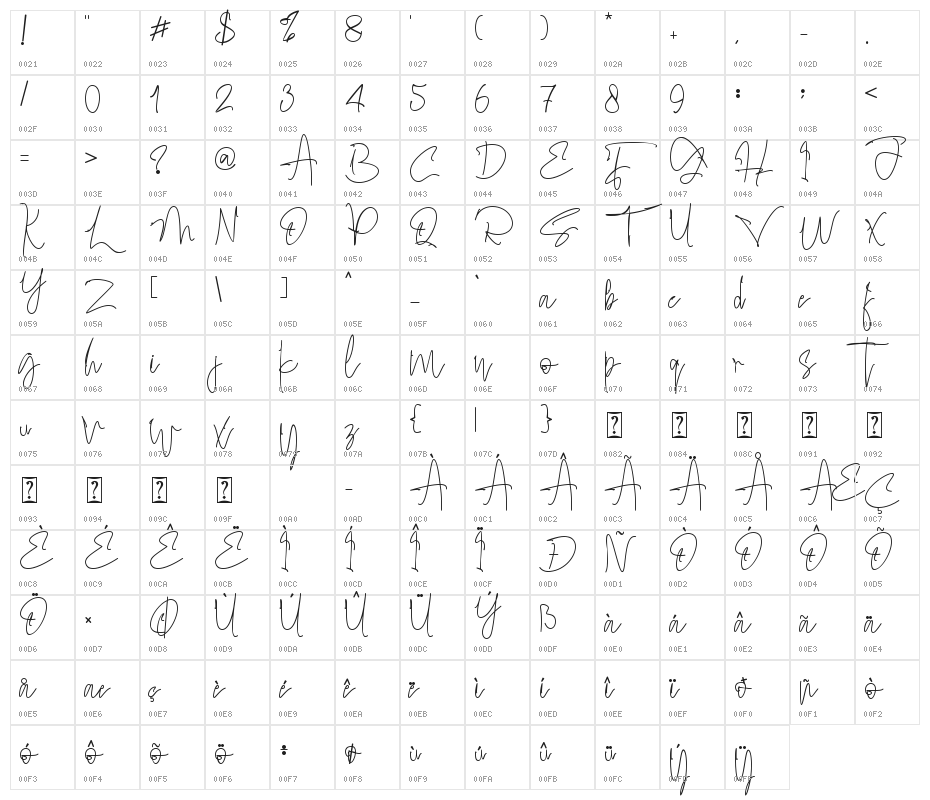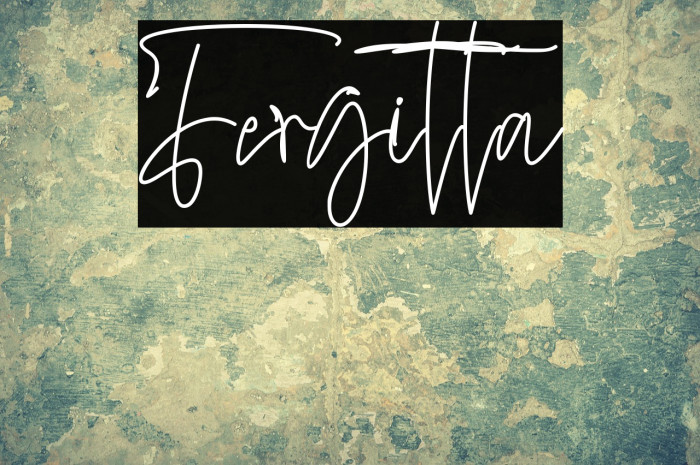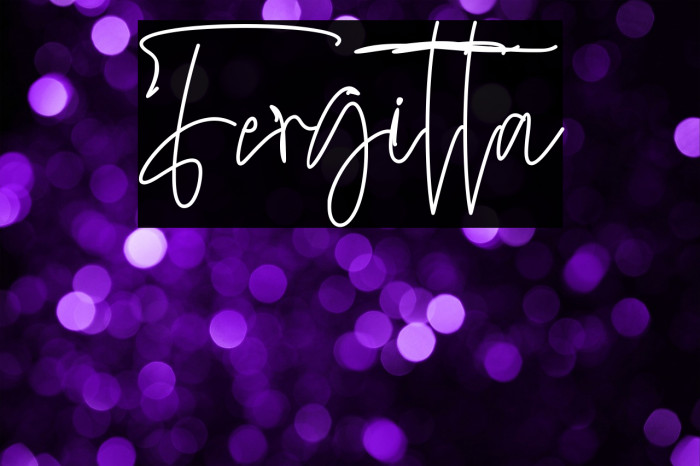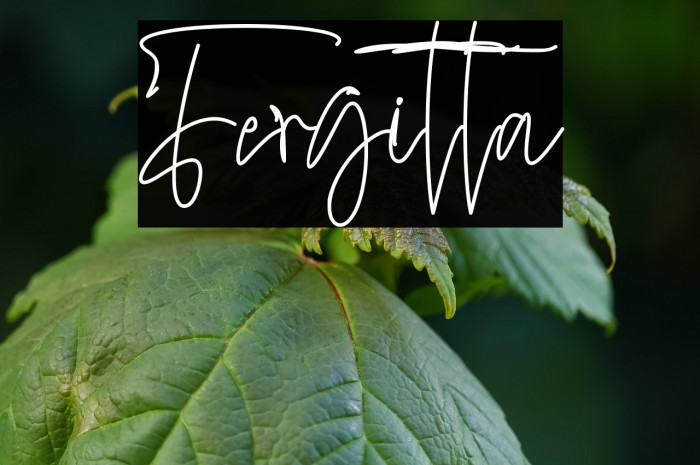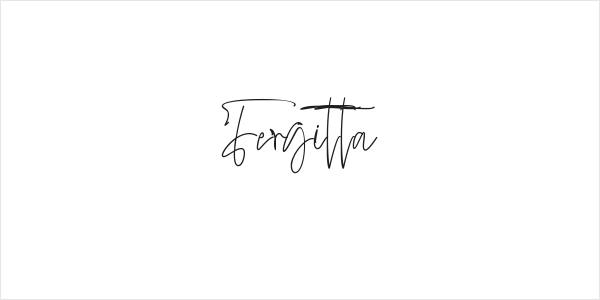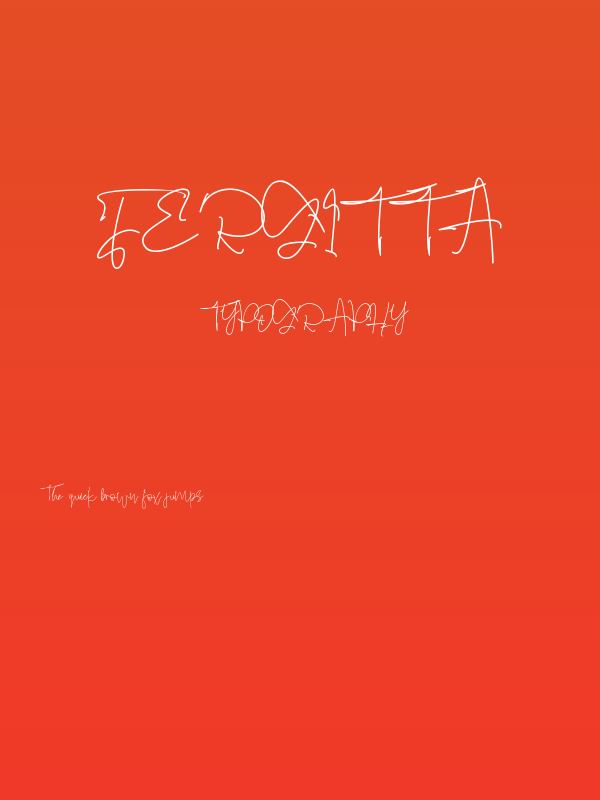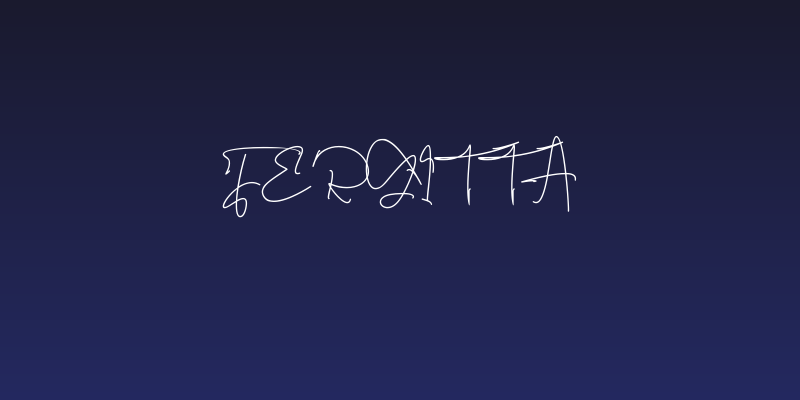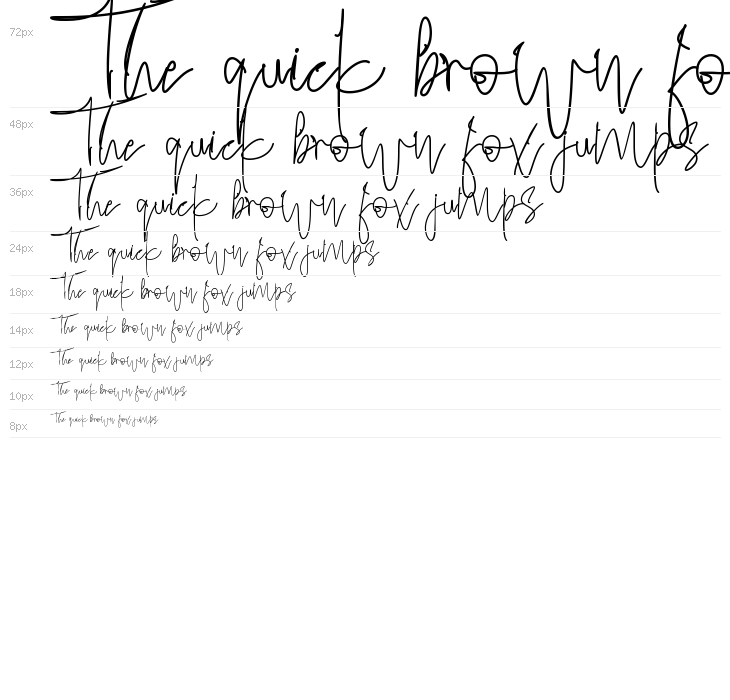
Fergitta Font
Fergitta Description
This font features a lively and dynamic handwritten style, characterized by its fluid and continuous strokes. The uppercase letters exhibit a playful yet elegant flair, with varying heights and loops that give them a unique personality. The lowercase letters maintain a consistent flow, enhancing the handwritten feel. Numbers are clear and legible, while special characters are creatively integrated, maintaining the overall aesthetic. The font's organic and freeform nature makes it suitable for projects that require a personal touch or a sense of creativity.
| Use Case | Logos, Headlines, Artistic projects |
| Proposed Projects | Ideal for greeting cards, personal branding, artistic projects, and invitations. |